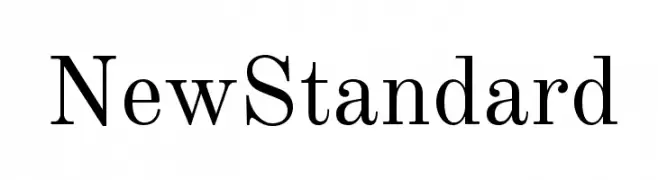
A modern serif typeface with elegant, refined letterforms and versatile applications.
A classic serif font with elegant strokes and moderate contrast, offering a timeless and sophisticated look.